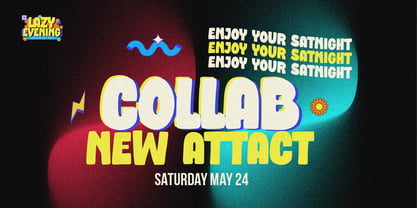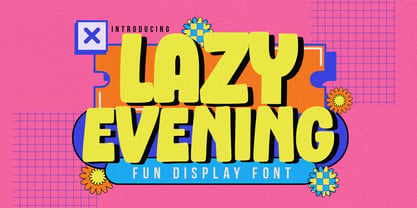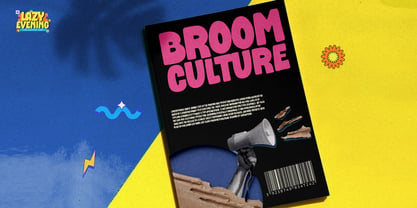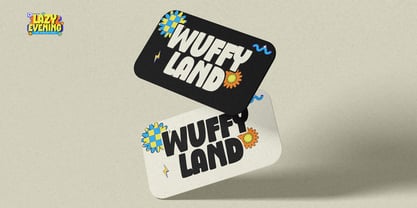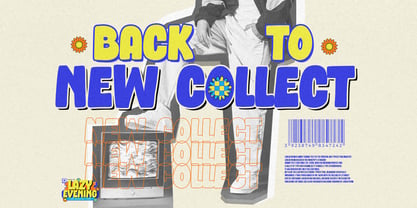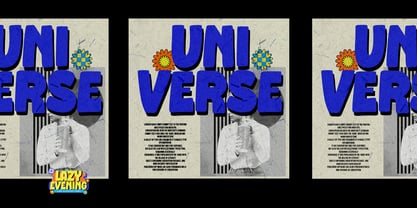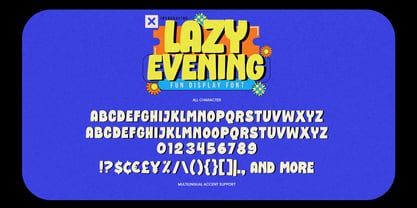
Lazy Evening
The Lazy Evening Font Family was designed by Abdul Malik Wisnu and published by Gassstype. Lazy Evening contains 1 styles. More about this family
Introducing our new product, Font Lazy Evening This Is Fun Display Font. This textured natural style font exudes a fun and clear aesthetic, making it perfect for your next creative project. Ideal for logos, printed quotes, invitations, cards, product packaging, headers, logotypes, letterheads, posters, and more. This font adds a charming, authentic, and relaxed characteristic to your text, making it suitable for watermarks on photography, branding, advertisements, stationery, wedding designs, labels, and special events. Elevate your designs with this unique handwriting-inspired font.